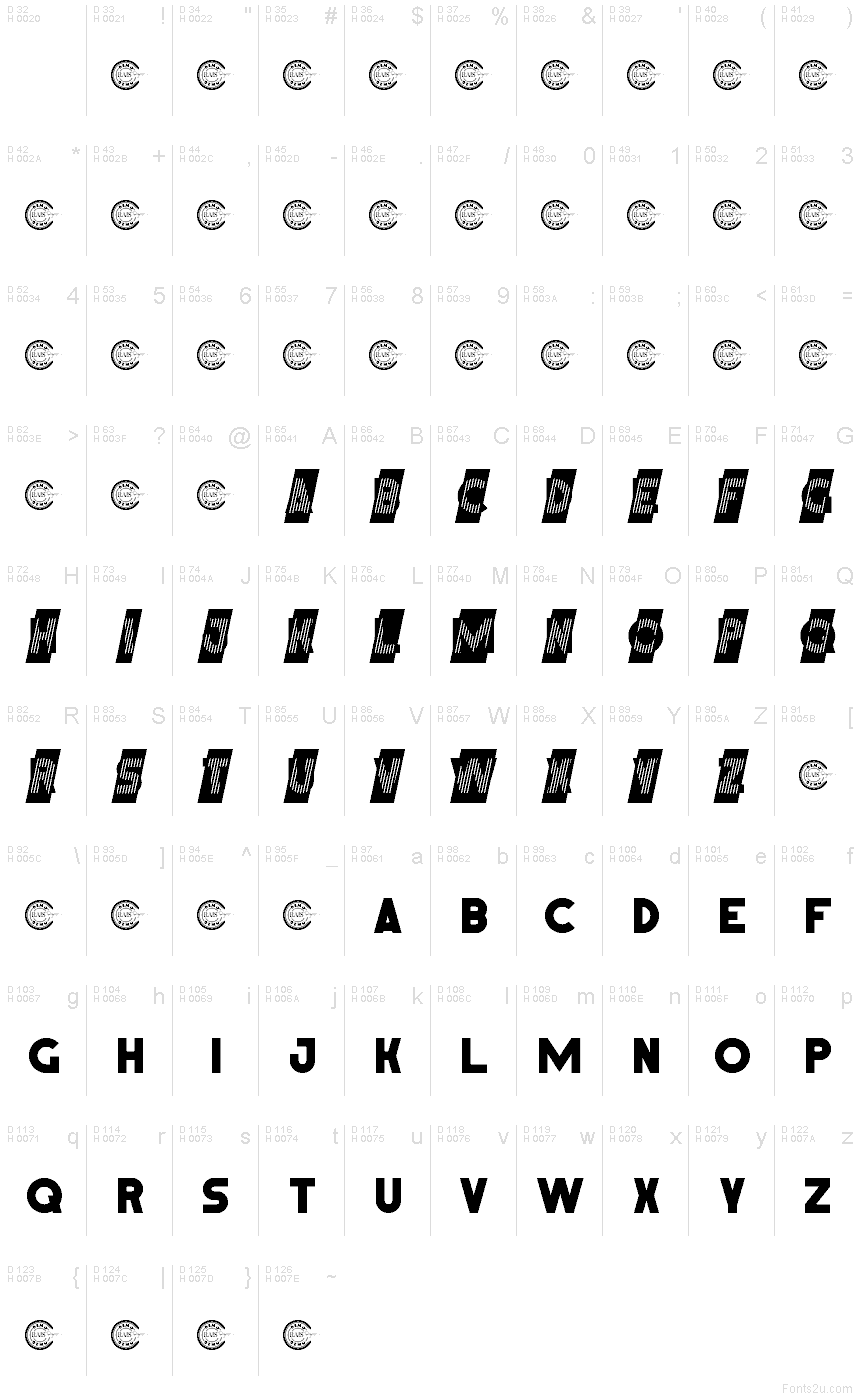
OmentaloDemo
Omentalo font by RaisProject is a geometric modern display font with an impactful style. The clean digital look of its characters mixed with the slanted ones in both directions form the particular and suggestive character Omentalo is famous for. Interpret every original design idea, from minimalist branding to aesthetic visuals, using this free display font.
The potential use cases vary and you can show off the many faces of Omentalo in titles, headers, paragraph texts, posters, apps/websites interfaces design, presentations (Powerpoint or keynote), signages (indoor and outdoor), flyer designs and so on.